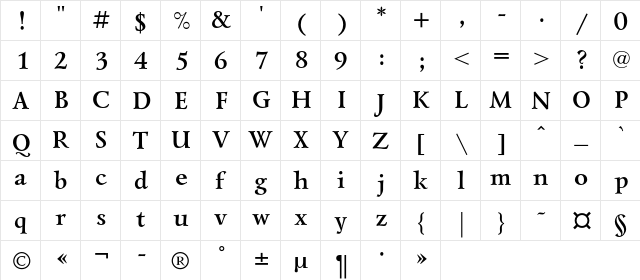
LazurskiC Bold
Design Context for LazurskiC Typeface
LazurskiC offers clean, dependable letterforms without strong stylistic allegiance, making it a practical choice for designers who need flexibility. Its bold stroke weight gives it real presence on the page.
Pro Tip: Pair LazurskiC with a font of contrasting weight or personality to build a more expressive typographic hierarchy.